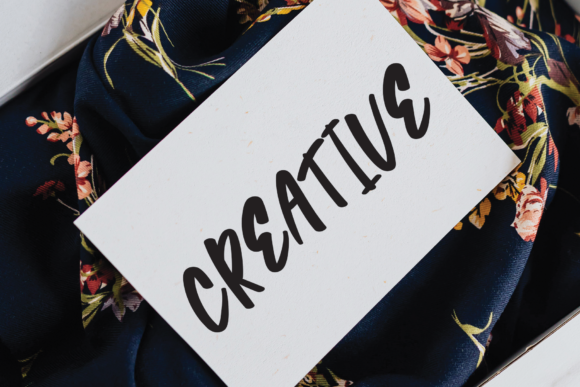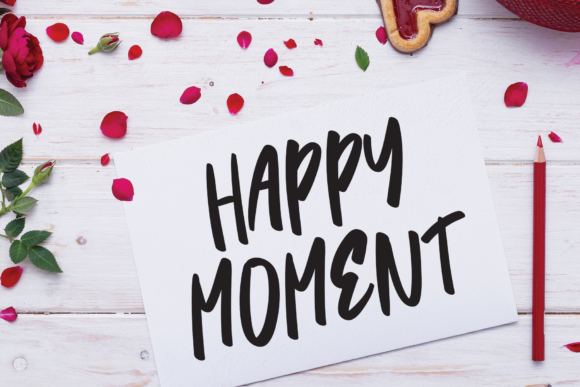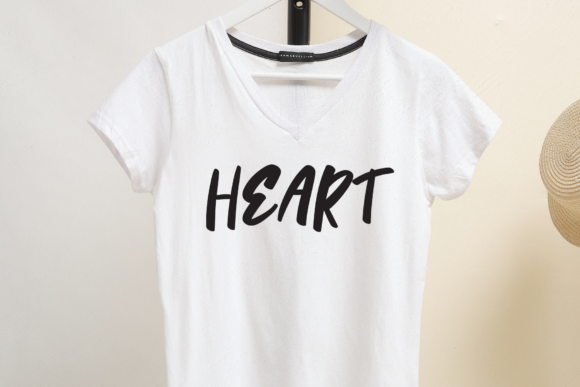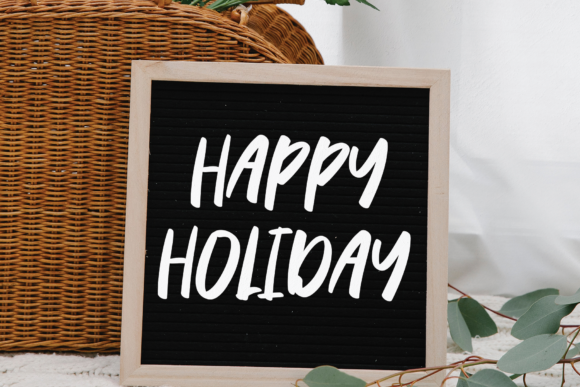
Introducing Heart Font: The Ultimate Romantic and Chic Display Font
Are you looking for a font that can add a touch of romance and elegance to your design projects? Look no further than Heart Font, a stunning display font that is sure to capture the hearts of designers and crafters alike. With its unique characters and modern, beautiful style, Heart Font is the perfect choice for anyone looking to elevate the look of their projects.
What Makes Heart Font So Special?
Heart Font is a romantic and chic display font that features a range of unique characters, making it perfect for a variety of design projects. From wedding invitations and Valentine’s Day cards to romantic getaways and love letters, Heart Font is the ideal choice for anyone looking to add a touch of whimsy and romance to their designs.
One of the standout features of Heart Font is its modern, beautiful style. With its clean lines, elegant curves, and delicate details, Heart Font is sure to add a touch of sophistication and glamour to any project. Whether you’re designing for print or digital, Heart Font is the perfect choice for anyone looking to create a lasting impression.
Key Features of Heart Font
- Unique Characters: Heart Font features a range of unique characters, including hearts, flowers, and other romantic symbols, making it perfect for Valentine’s Day, wedding designs, and other romantic projects.
- Modern Style: With its clean lines, elegant curves, and delicate details, Heart Font has a modern, beautiful style that is sure to elevate the look of any project.
- Display Font: Heart Font is a display font, making it perfect for headlines, titles, and other large-format text.
Heart Font is perfect for designers and crafters who are looking to add a touch of romance and elegance to their projects. Whether you’re designing wedding invitations, Valentine’s Day cards, or other romantic getaways, Heart Font is the ideal choice.
With its unique characters and modern style, Heart Font is also perfect for a range of other design projects, including:
- Wedding Designs: Use Heart Font to create beautiful wedding invitations, save-the-date cards, and other wedding-related designs.
- Valentine’s Day Designs: Heart Font is perfect for Valentine’s Day cards, gifts, and other romantic designs.
- Romantic Getaways: Use Heart Font to create beautiful designs for romantic getaways, including brochures, websites, and social media graphics.
Here are a few tips for using Heart Font:
- Use it as a Display Font: Heart Font is perfect for headlines, titles, and other large-format text.
- Experiment with Colors: Heart Font looks great in a range of colors, including pink, red, and white.
- Pair it with Other Fonts: Heart Font pairs perfectly with other fonts, including sans-serif fonts and script fonts.
Heart Font is a romantic and chic display font that is sure to capture the hearts of designers and crafters alike. With its unique characters and modern, beautiful style, Heart Font is the perfect choice for anyone looking to add a touch of romance and elegance to their design projects.